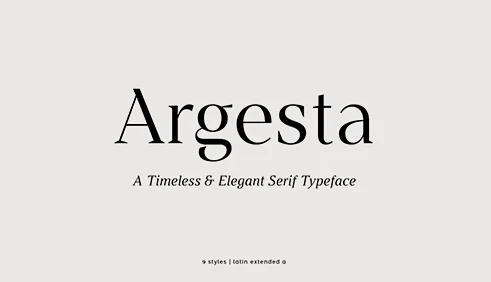
Argesta Font Family
The Argesta Font is perfect for elegant branding, wedding invitations, editorial design, luxury packaging, and sophisticated social media graphics. Its refined curves and stylish letterforms provide a polished and timeless look, ideal for projects that require class and subtlety.
What makes the Argesta Font Free Download so exciting is its combination of modern elegance and classic charm. Each character is meticulously crafted, giving your designs a sense of refinement and professionalism while remaining visually appealing and versatile.
The Argesta Font family includes multiple styles such as Regular, Italic, Bold, and Light. These options give designers flexibility to create hierarchy and emphasis, allowing for cohesive and versatile typography across a wide range of creative projects.